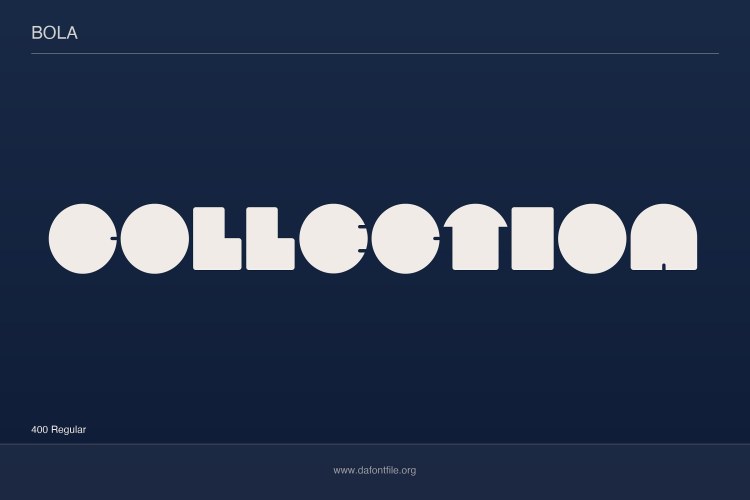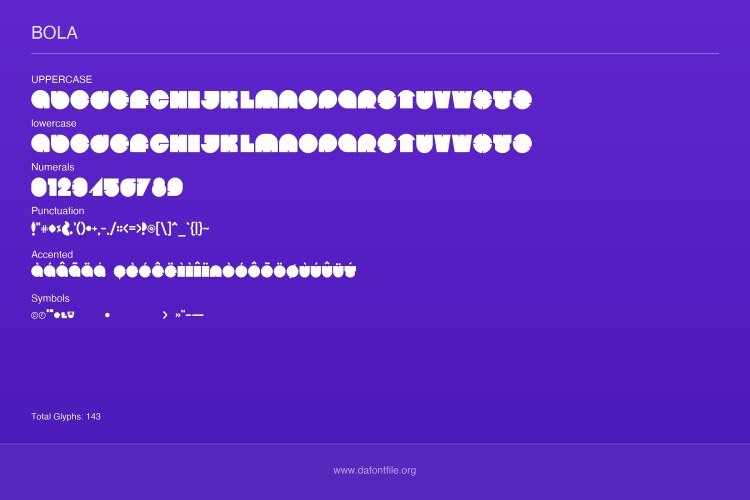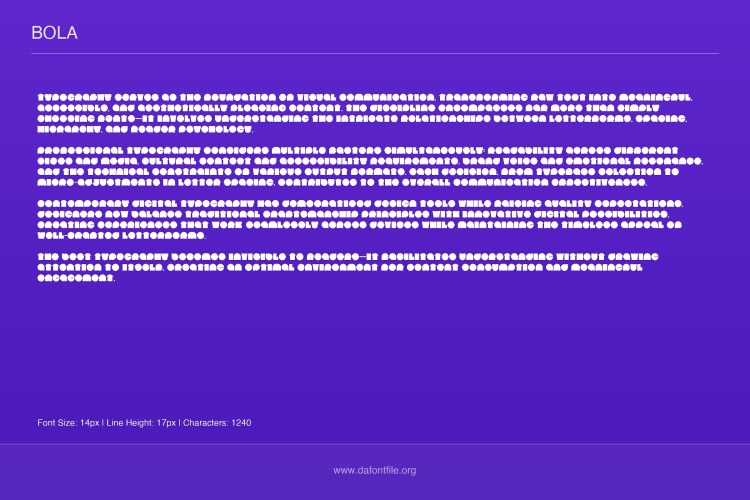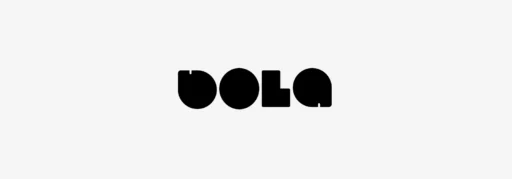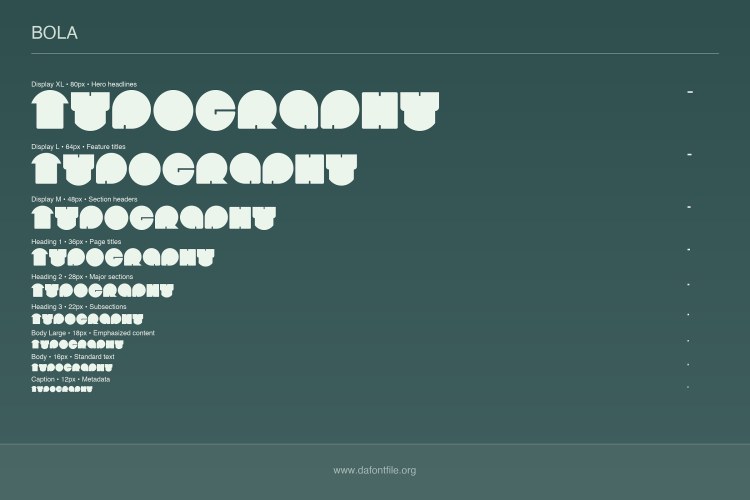
Bola Font
The Bola font is a bold and rounded display typeface with a smooth geometric style. Its clean curves and heavyweight make it stand out in headlines, posters, and logos. The friendly appearance gives it a modern yet approachable look. This font is well-suited for branding, packaging, or any design that needs strong visual impact with a touch of softness.
Bola Font is a Sans Serif Fonts font that brings a professional and versatile look to your projects. The Bola font is a bold and rounded display typeface with a smooth geometric style.